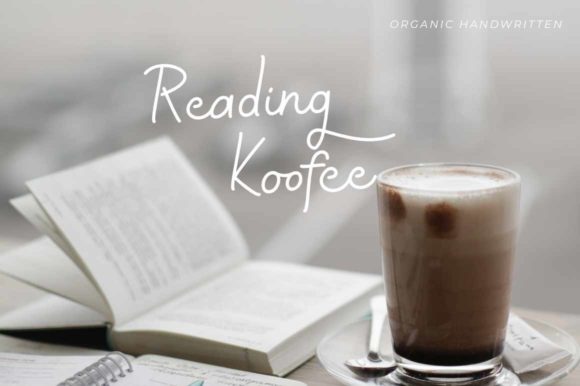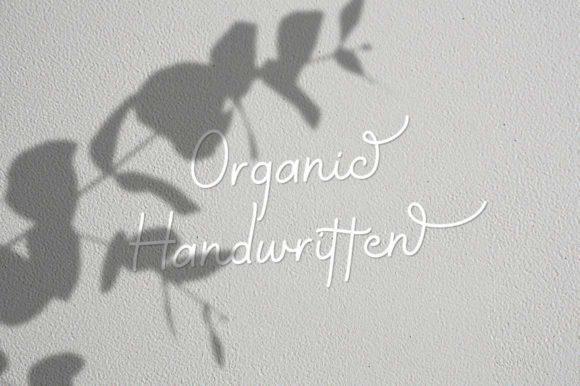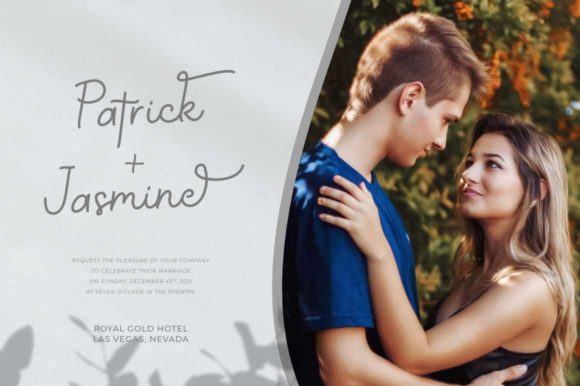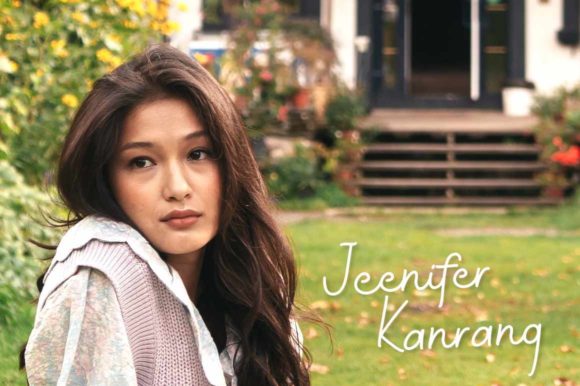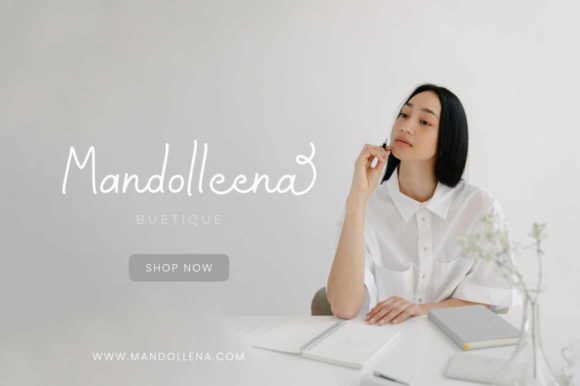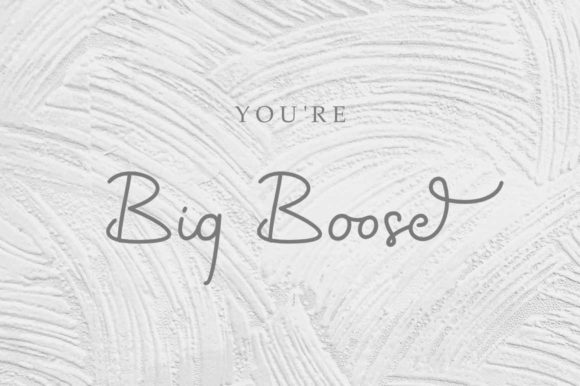
Introduction to Priscillia Font
Priscillia is a beautiful, well balanced and vintage styled script font.
It is defined by smooth curves and is perfect for fashion branding or editorial designs This font is PUA encoded which means you can access all of the glyphs and swashes with ease.